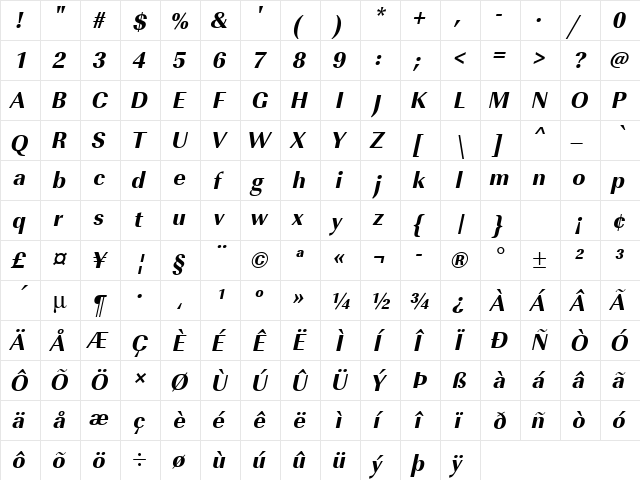
URWImperialTExtBolNar Oblique Font Preview
URWImperialTExtBolNar Oblique
Design Context for URWImperialTExtBolNar Typeface
URWImperialTExtBolNar is a composed and adaptable typeface that performs quietly and consistently across a wide range of design contexts. The slanted form adds forward momentum and visual energy.
Pro Tip: Try URWImperialTExtBolNar for annotation and caption copy alongside an upright companion — the contrast in angle creates a dynamic but ordered typographic system.